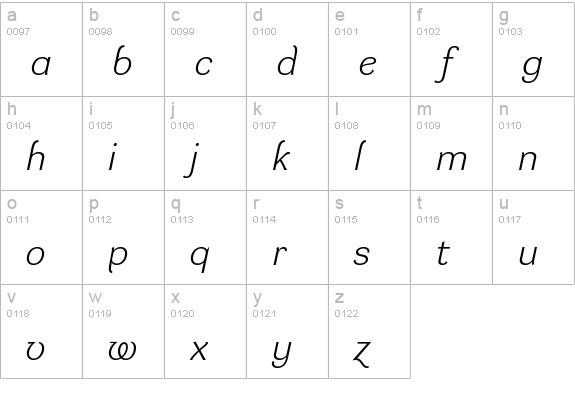
Dynamo Italic L E is a distinctive, italic variant in the Dynamo typeface family \xE2\x80\x94 well suited to design and typography projects.
Dynamo Italic L E font is a modern and sleek typeface that exudes elegance and sophistication. Its italic style adds a touch of flair and creativity to any design project. The sharp lines and clean curves of this font make it perfect for adding a contemporary edge to logos, headlines, or branding materials. What sets Dynamo Italic L E font apart is that it is not only visually striking but also completely free to use. This makes it an ideal choice for designers, creatives, and anyone looking to enhance their projects without breaking the bank. You can easily download Dynamo Italic L E font for free at FontsMarket.com, where it is readily available for use in both personal and commercial projects. With its versatility and stylish aesthetic, Dynamo Italic L E font is sure to make a bold statement in any design application. Whether you're creating a website, poster, or advertisement, this font will add a touch of sophistication and modernity to your work. Download it today and elevate your designs with the timeless charm of Dynamo Italic L E font.